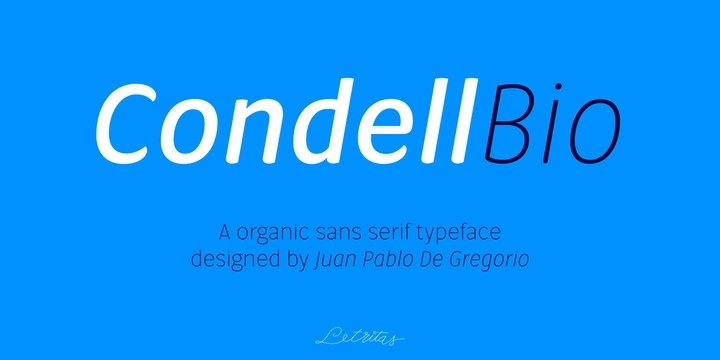
Condell Bio Font
Condell Bio Font is perfect for biotechnology company branding, scientific research publications, medical device marketing, pharmaceutical packaging, laboratory signage, environmental science materials, academic biology journals, and sustainable technology presentations. This scientific typeface excels in applications where biological precision and scientific credibility are essential for creating authoritative and trustworthy brand experiences that honor the complexity of life sciences.
What makes Condell Bio Font truly exciting is its sophisticated embodiment of biological systems and scientific methodology that captures the intricate beauty of cellular structures and the systematic approach of modern life sciences research. The font features precisely crafted letterforms with organic curves and scientific character details that mirror the elegant complexity of molecular biology and the methodical precision of laboratory research. Its scientific personality and biological character create an immediate sense of research credibility and life science expertise that resonates with audiences seeking reliable scientific information and cutting-edge biological innovations. The typeface's scientific heritage and biological appeal make it perfect for brands wanting to convey expertise, innovation, and connection to the advancing frontiers of life sciences and biotechnological discovery.
The Condell Bio Font family includes multiple weights from Light to Bold, complemented by scientific alternates and biology-inspired decorative elements. The font offers comprehensive character sets with scientific symbols, biological notation, and research-focused styling details that enhance its academic aesthetic. Additional graphic elements including molecular patterns, cellular motifs, scientific ornaments, and biological flourishes provide designers with complete branding tools rooted in life sciences research and biotechnology innovation.
For designers seeking a credible scientific typeface, Condell Bio Font Free Download represents an outstanding choice that brings biological authority to contemporary brand communications. Whether you're developing identities for biotech companies, designing materials for research institutions, or creating marketing campaigns for medical technology firms, this font delivers the scientific credibility that appeals to research communities and healthcare professionals. Its biological character and scientific appeal make it particularly effective for brands in biotechnology, pharmaceuticals, and life sciences industries. The font's ability to convey precision, innovation, and scientific excellence makes it an invaluable asset for creating brand communications that celebrate biological research, medical advancement, and the transformative power of life sciences in improving human health, understanding natural systems, and developing innovative solutions to global challenges through rigorous scientific inquiry and biotechnological innovation.